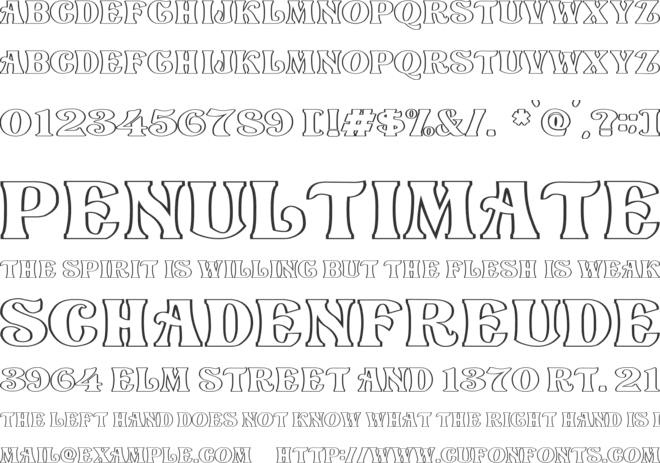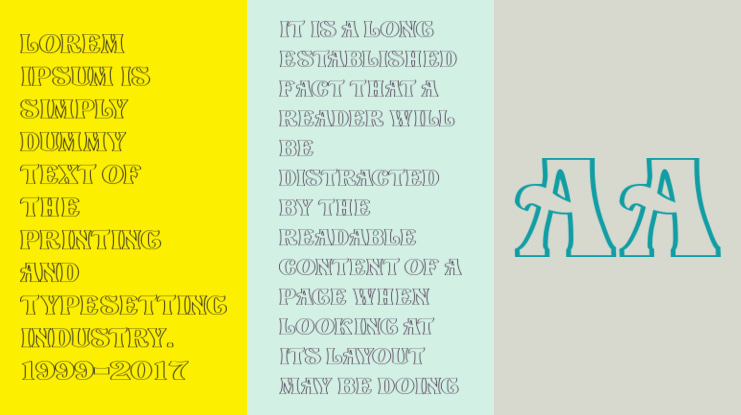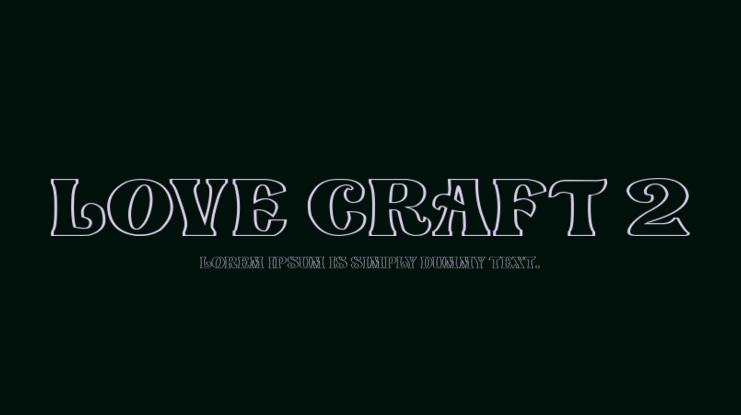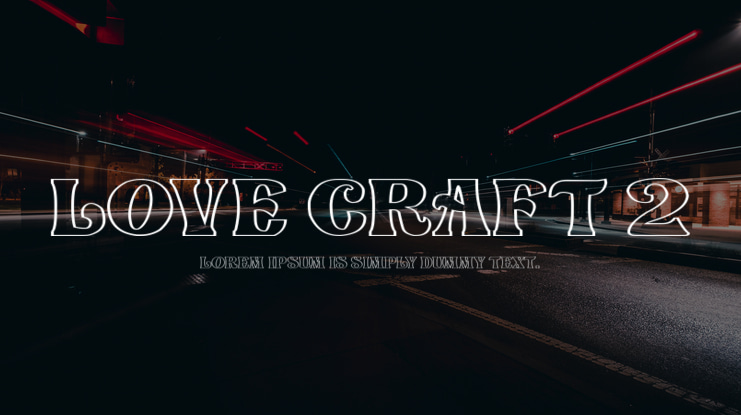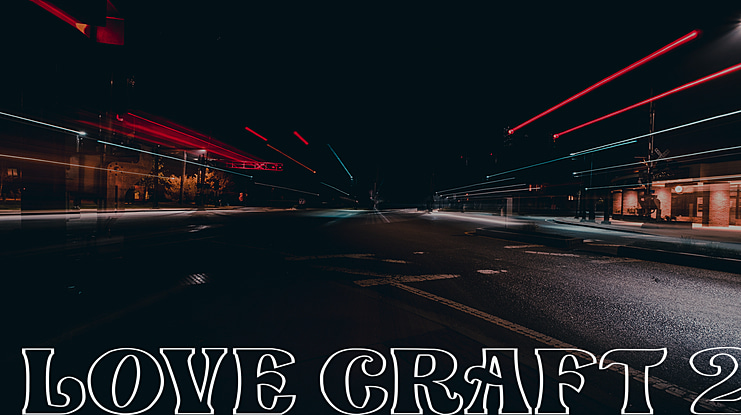
Love Craft 2 Font Family
Joseph Dawson
Love Craft 2 is a bold and simple display font. Use it to make your ideas even more realistic and create spectacular designs!